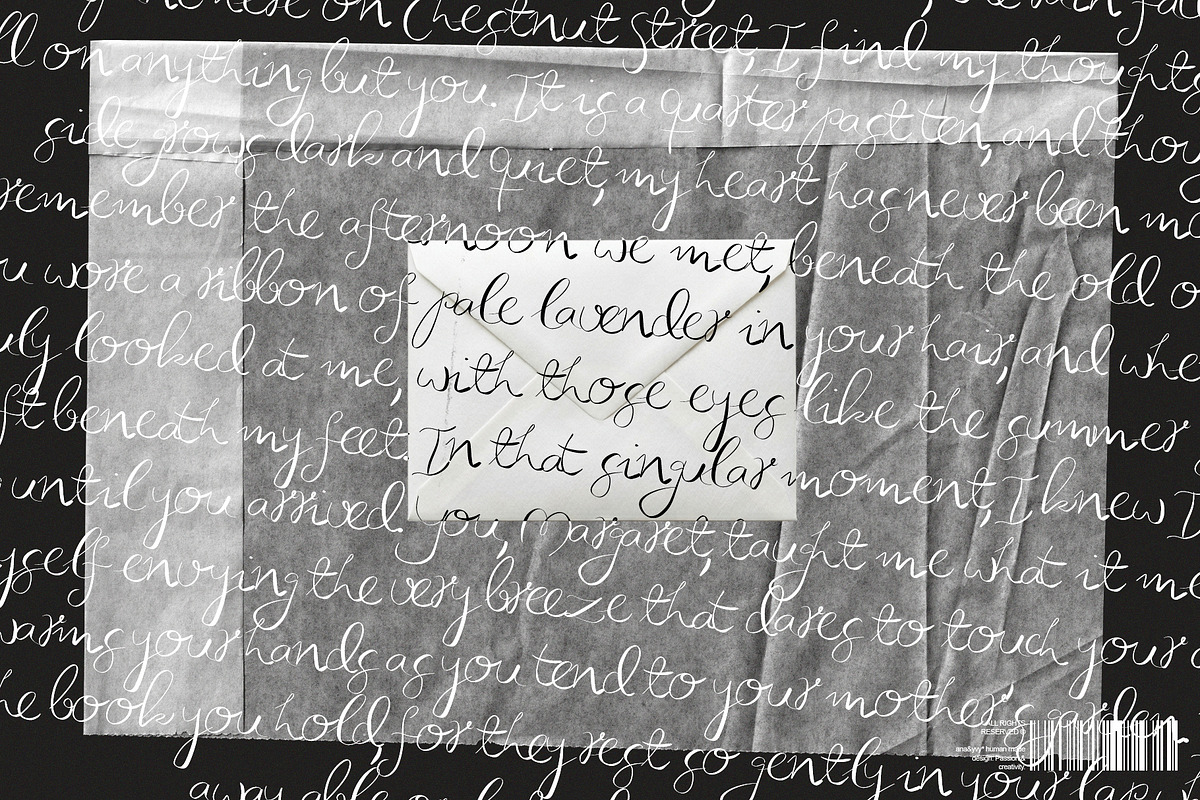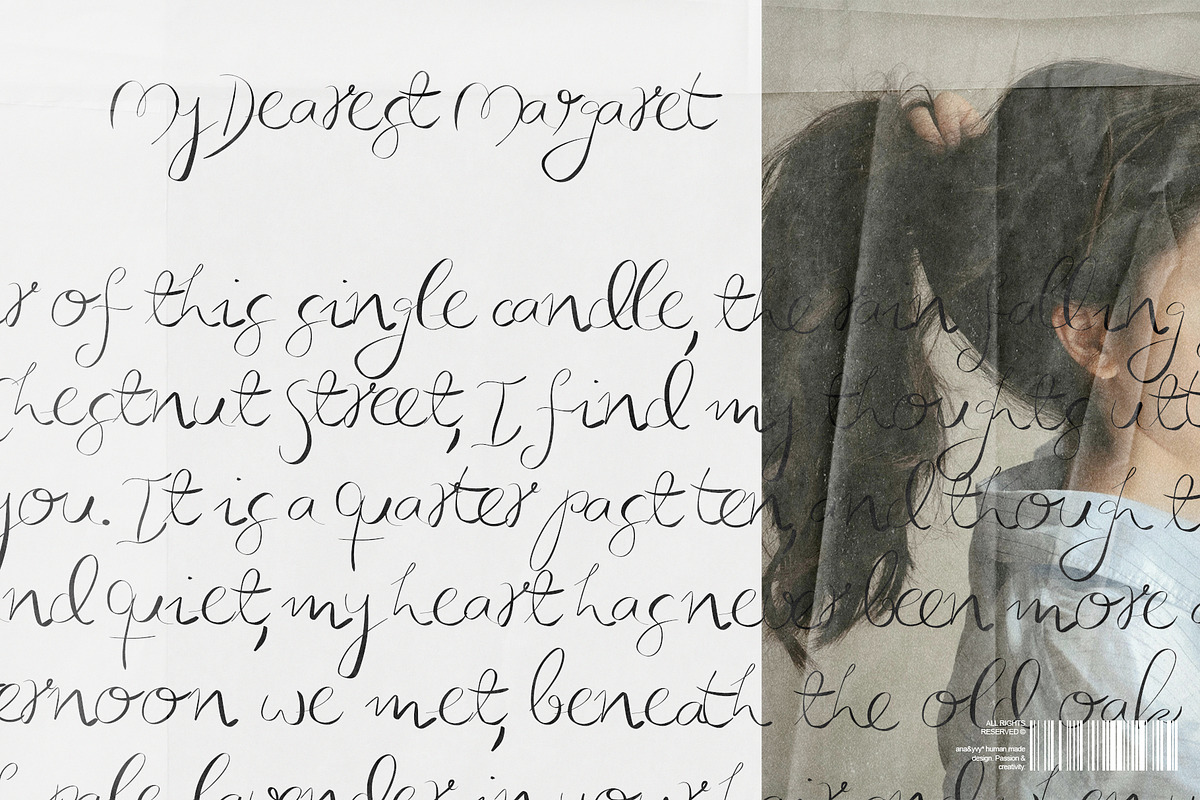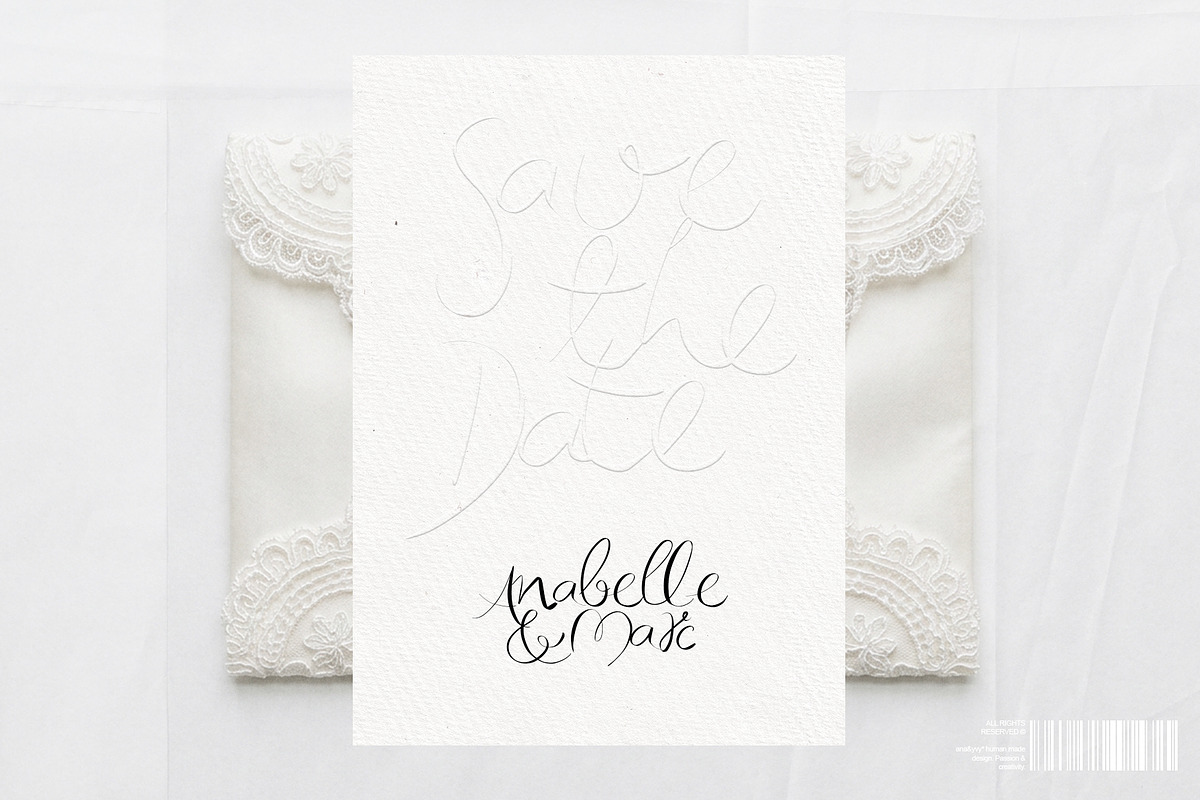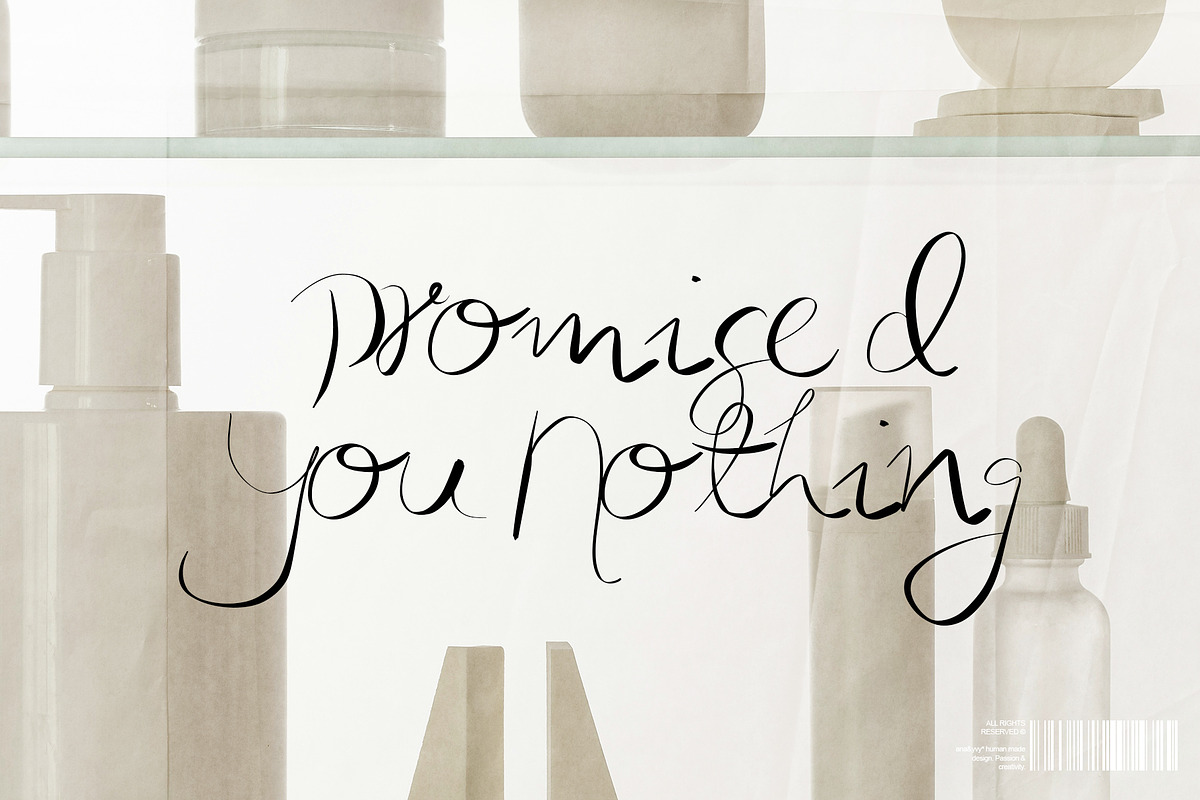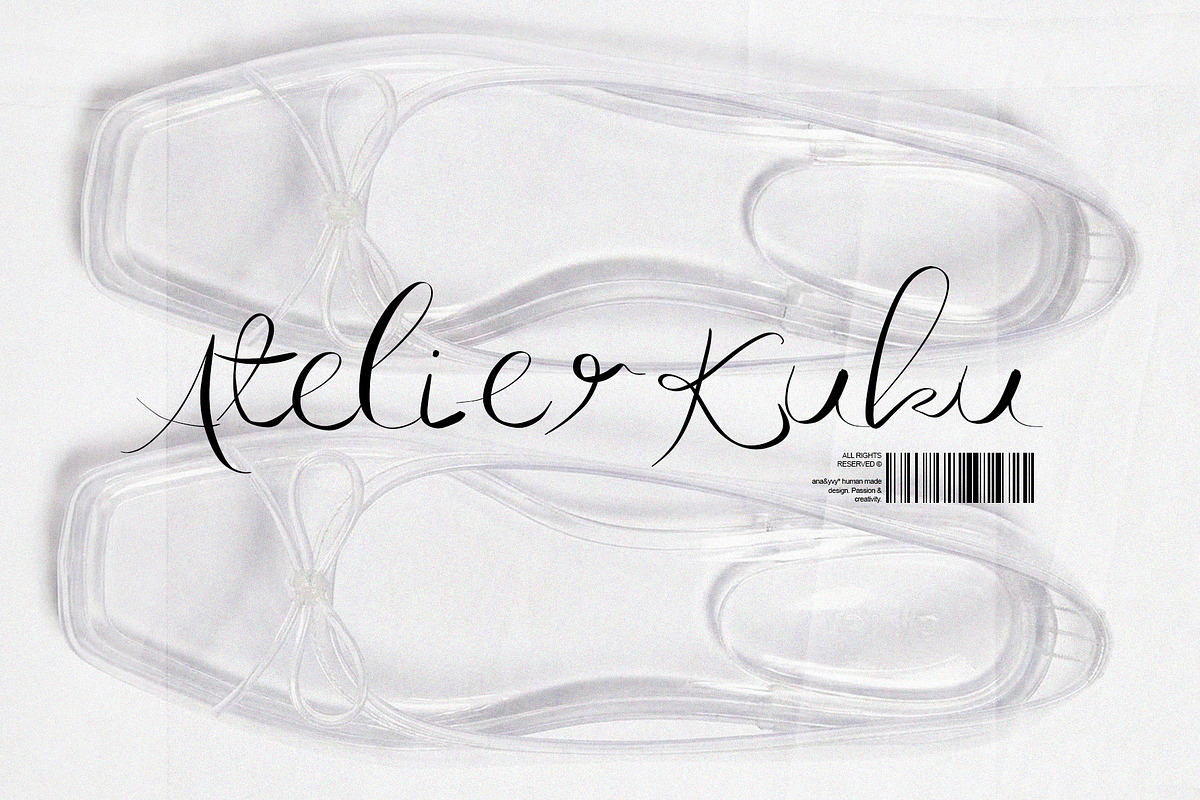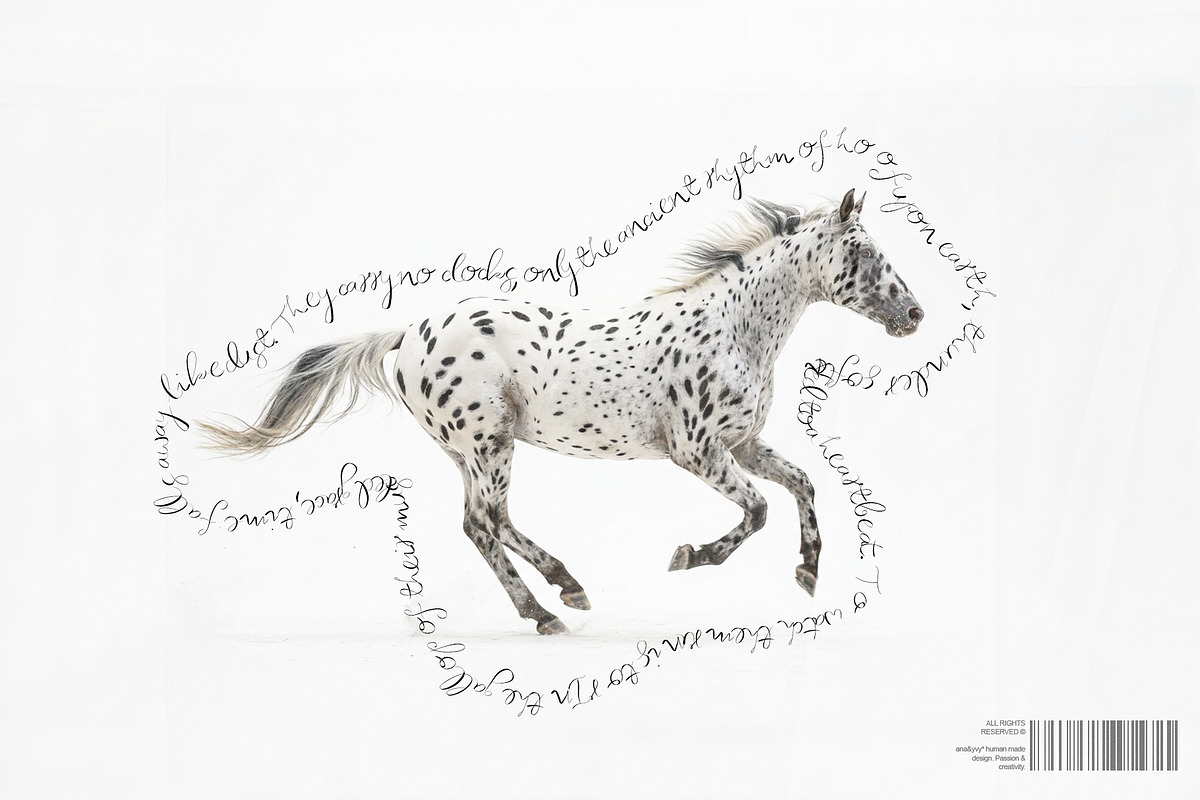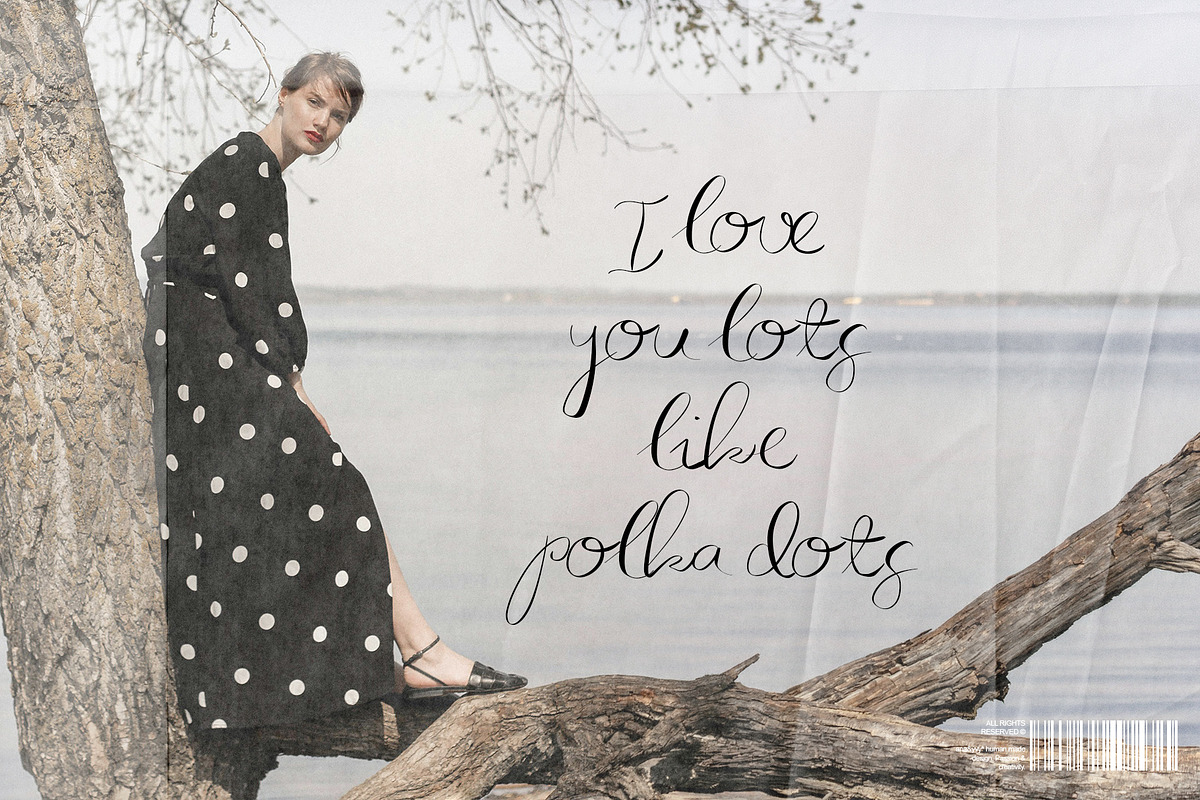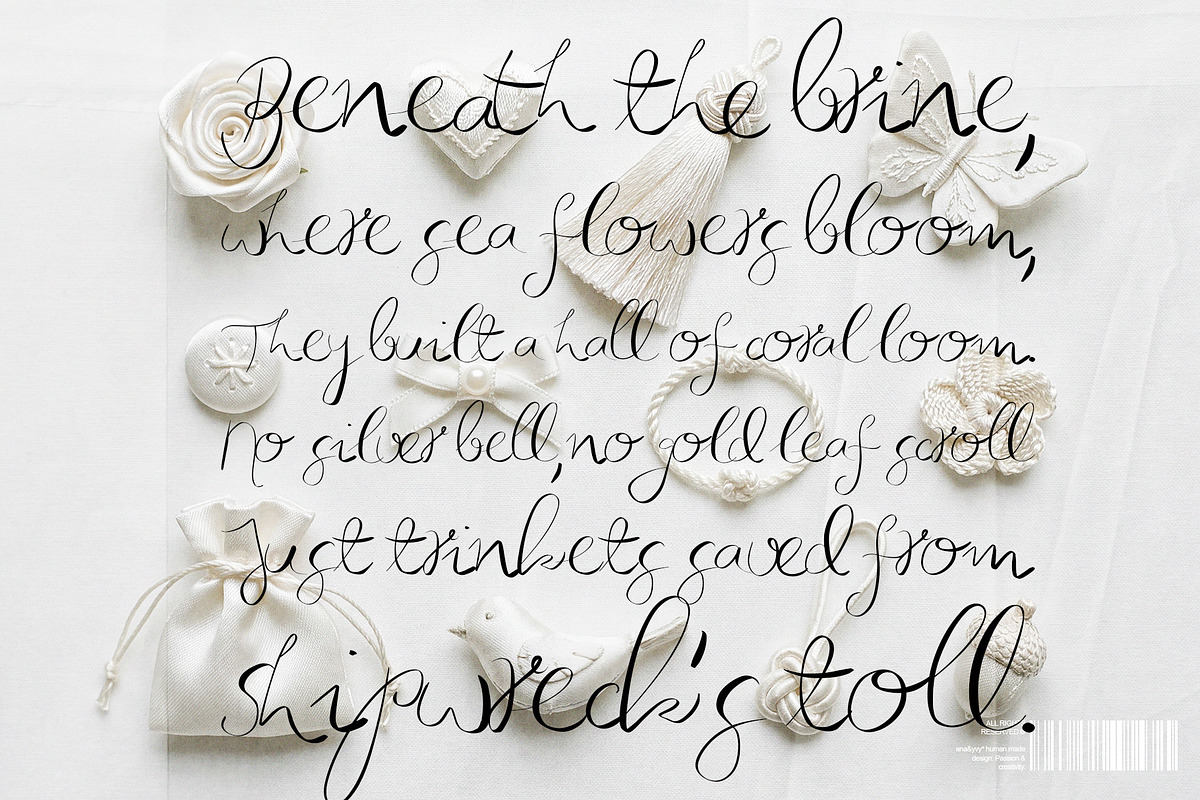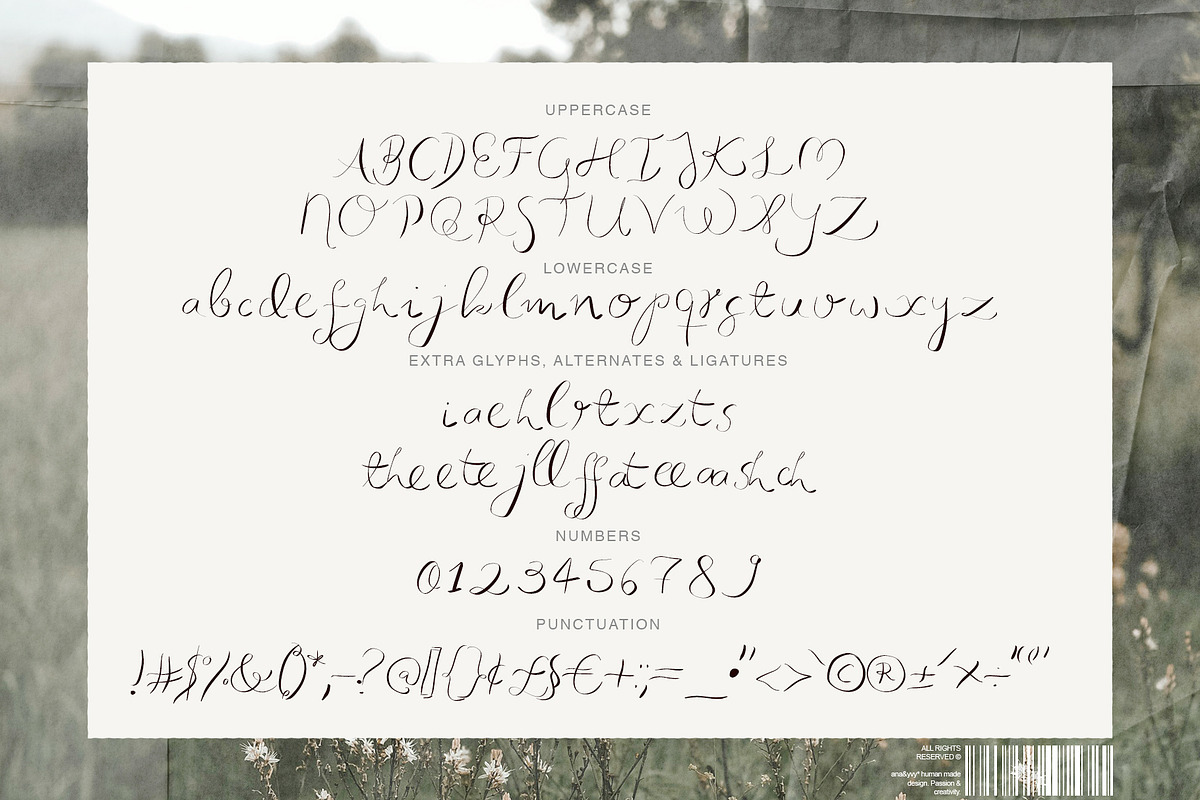
ATELIER KUKU quick & messy script
Atelier Kuku is a quirky, messy and lose handwritten script font. It's organic feel is giving handwriting and natural mess and brings a soft and calm feeling to your work.
Perfect for everything whimsy, girly quotes, romantic or playful compositions, wedding paper, birthday decor, editorial design, book covers, posters, planners & journaling and scrapbook or craft projects.